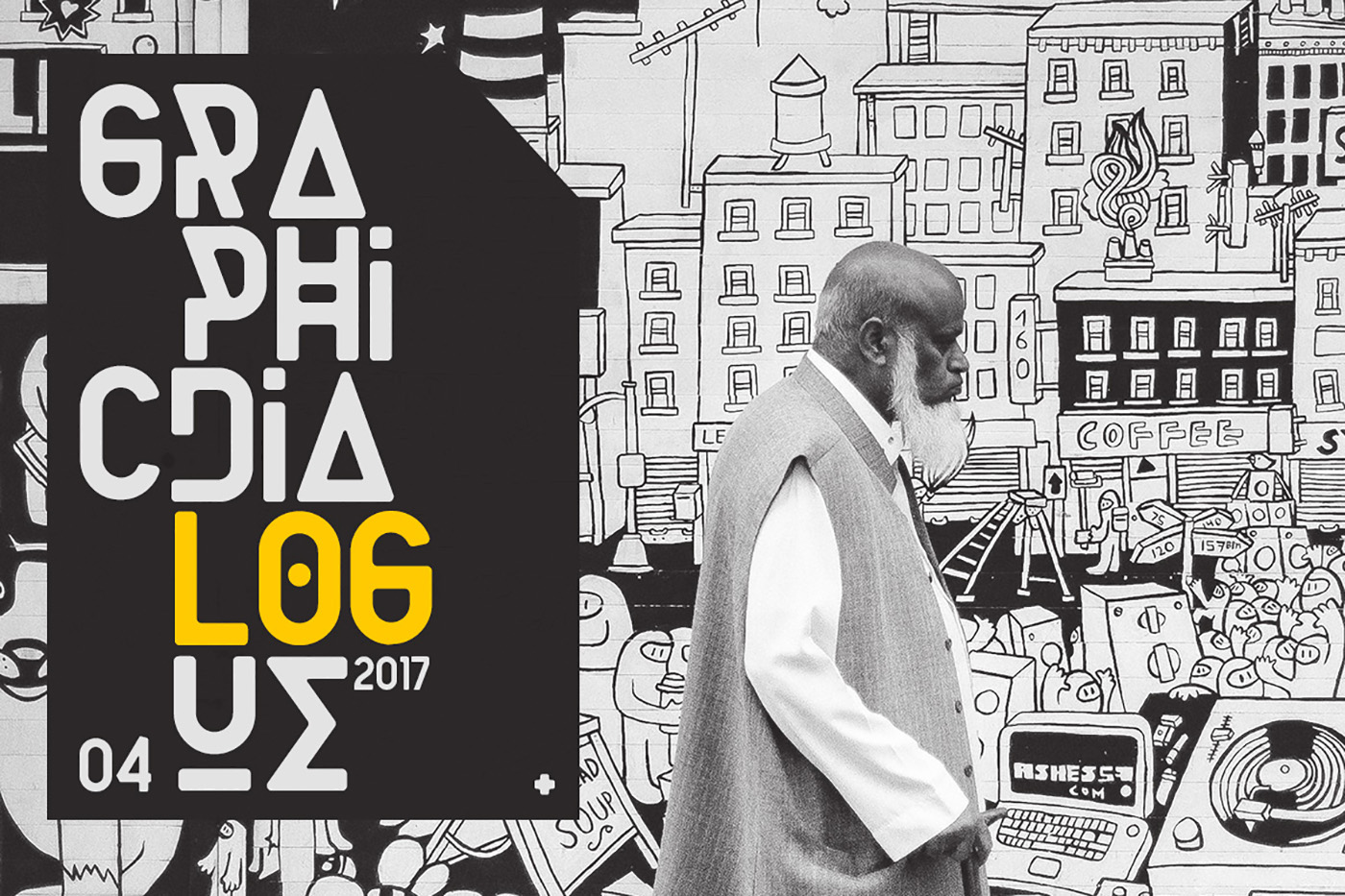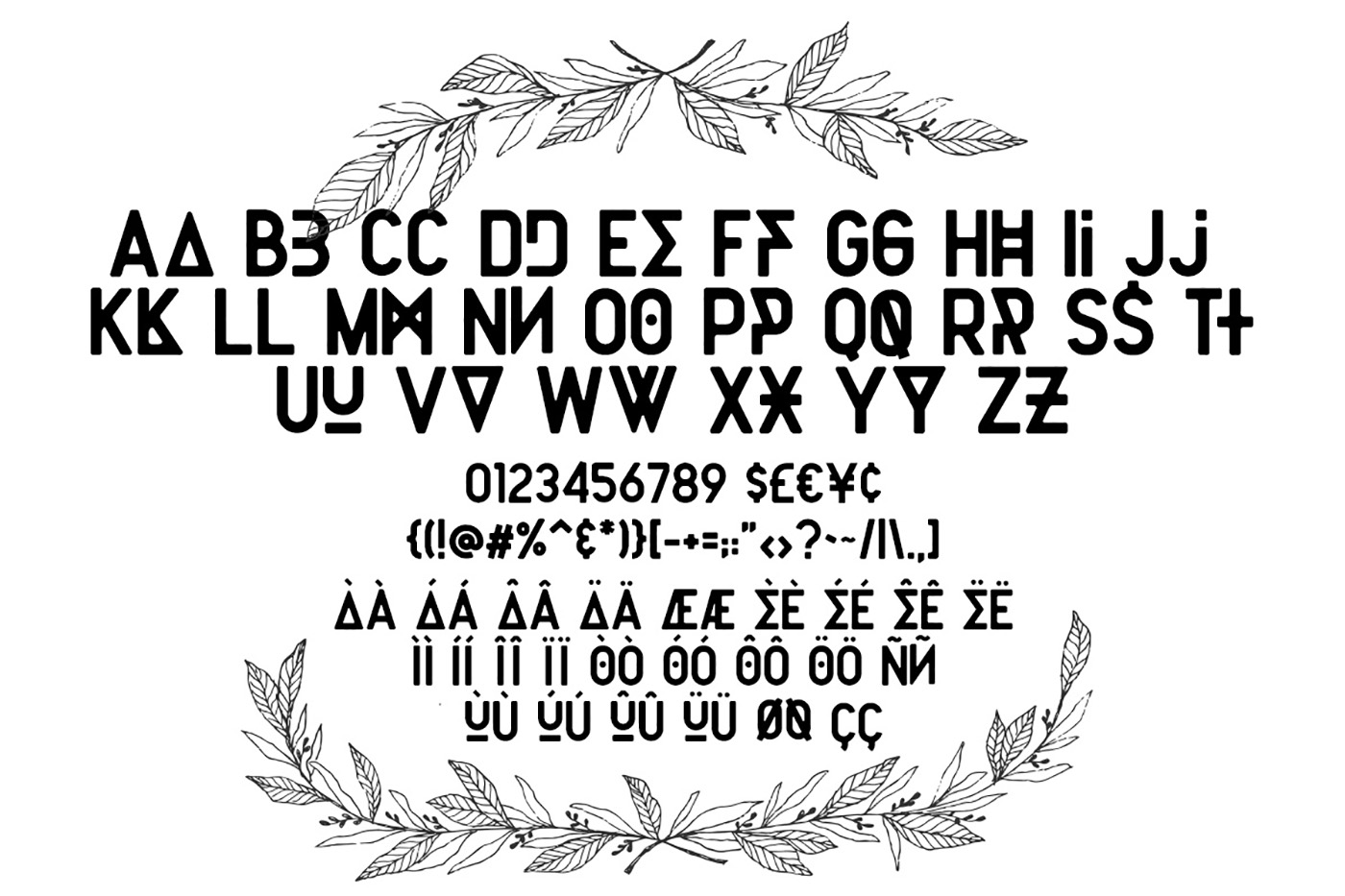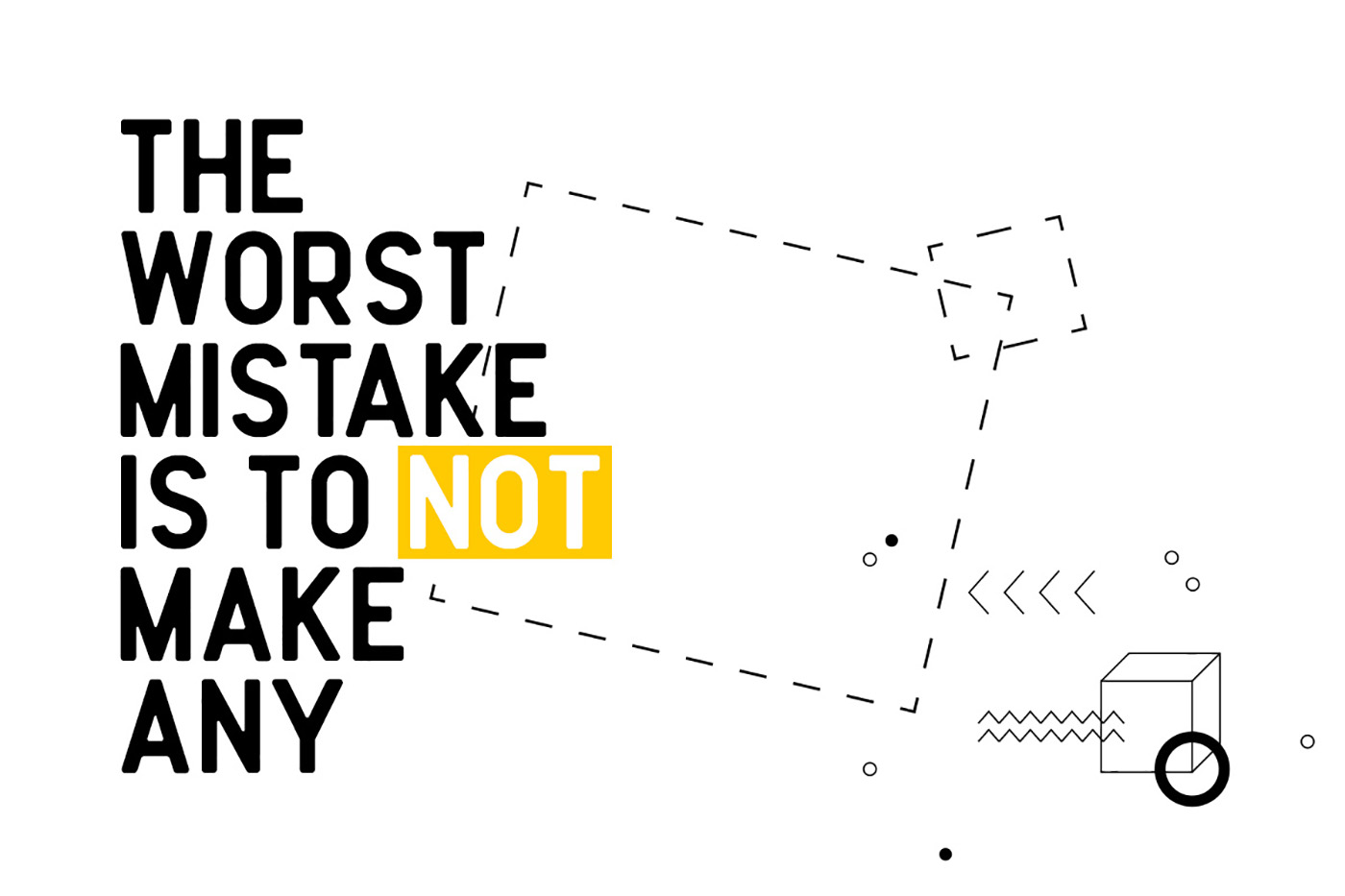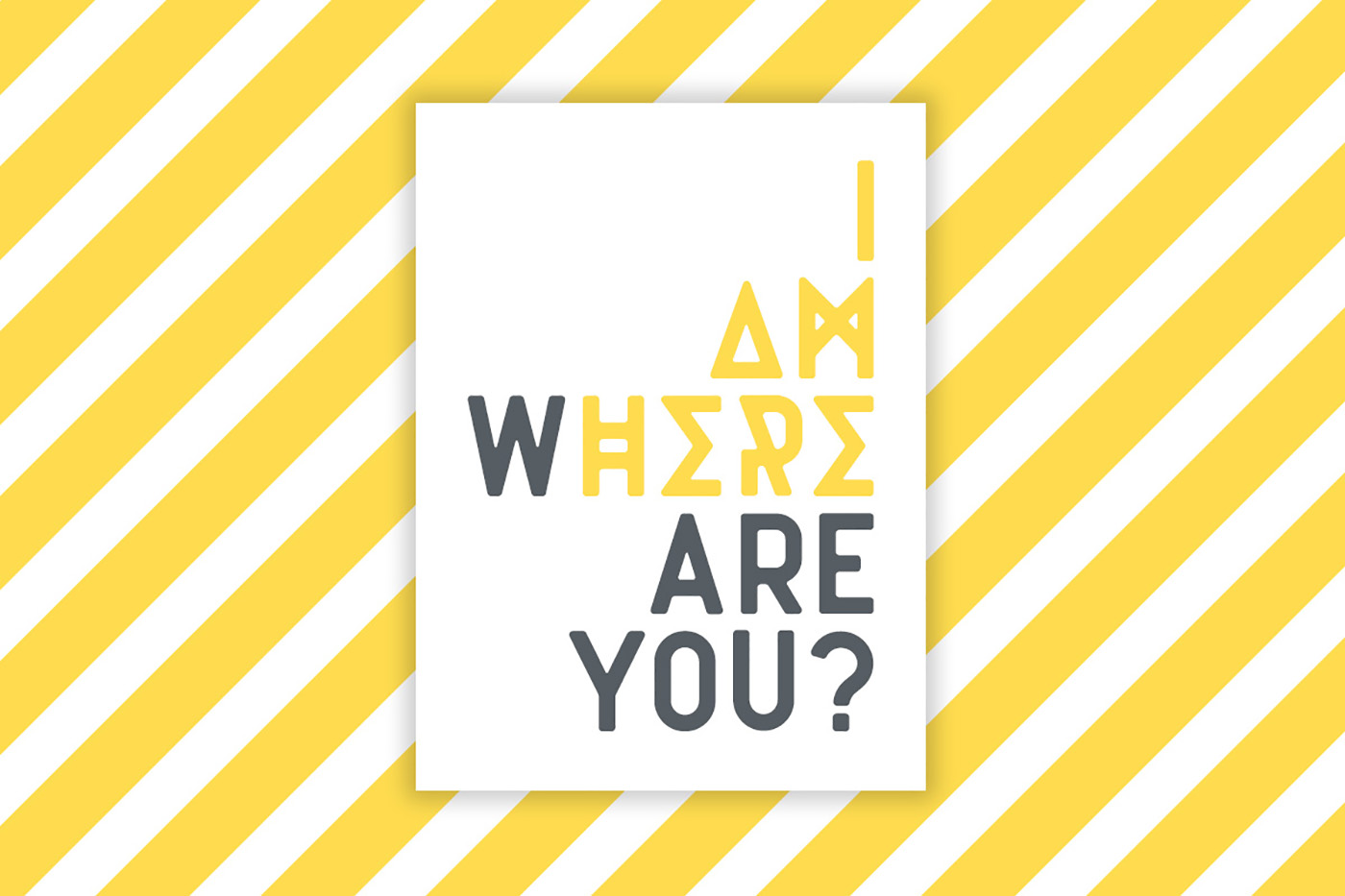
Introduction to Roger Type Font
Have you ever stared at a blank canvas, trying to conjure up the perfect font to bring your creative project to life? The struggle is real, but what if I told you that there’s a font that can elevate your design to the next level? Enter the Roger Type Font, a clean and simple vintage decorative font that’s sure to become your new go-to design resource.
With its smooth edges and bold aesthetic, the Roger Type Font is a game-changer for designers. Its high quality and modern style make it the perfect addition to any project, whether you’re working on a branding campaign or creating a stunning visual for social media. And the best part? This amazing font is available for a free download, so you can start using it in your creative projects right away.
Key Features of Roger Type Font
- High-quality, professional font design suitable for various creative projects.
- Features a clean, modern design with a clear and readable font style.
- Designed to be versatile and suitable for use in a wide range of applications, including print and digital media.
Honest Review: Roger Type Font
I’ve been using the Roger Type Font for my recent creative project, and I have to say, it’s been a game-changer. The high quality of the font has made a huge difference in the overall aesthetic of my design. The clean and minimalist design of the font makes it perfect for a variety of projects, from logos to brochures.
- High-quality design that’s perfect for a variety of projects
- Easy to use and customize
- Only comes in a few weights, which may limit its use in certain projects
- No bold or italic variations
- May not be suitable for large blocks of text
Overall, I’m really impressed with the Roger Type Font. It’s a great addition to any designer’s toolkit, and I highly recommend it for any creative project. Just be aware of the limitations mentioned above, and you’ll be golden.
Roger Type Font
Tips for Getting the Most Out of Roger Type Font
For the best results, use Roger Type Font in conjunction with a high-quality image or design element.
Experiment with different font sizes and styles to create a unique and eye-catching design.
Roger Type Font is perfect for:
1. Headlines and titles
2. Body text and paragraphs
3. Logos and branding